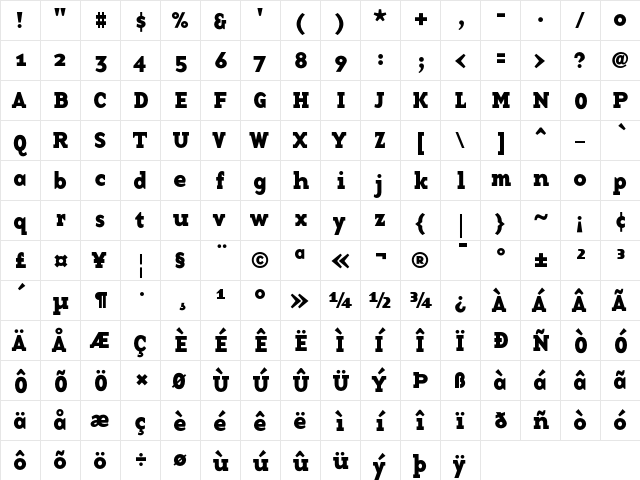
BaseTwelve SerifB
Design Context for BaseTwelve Typeface
BaseTwelve carries the refined structure of traditional serif typography, with bracketed terminals and considered proportions that communicate credibility and craft.
Pro Tip: Set BaseTwelve with slightly loose tracking in headlines to let each letterform's detail read clearly at display sizes.